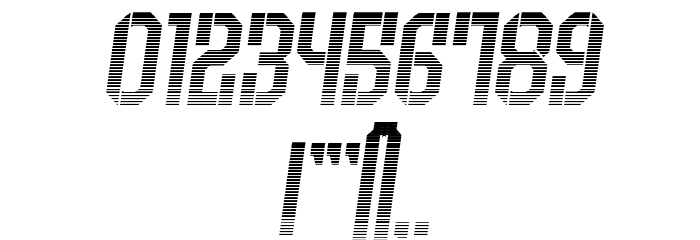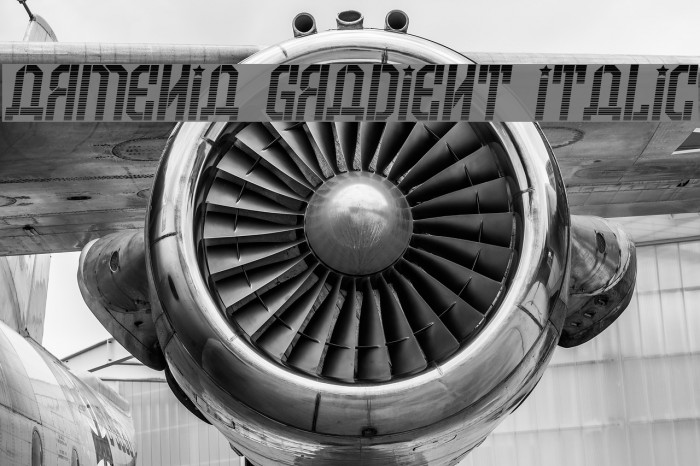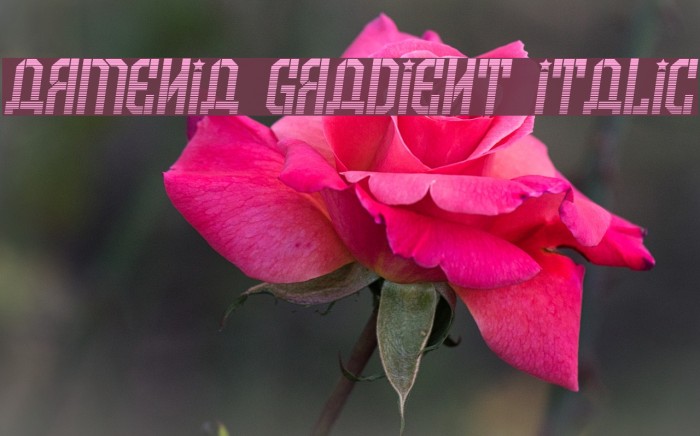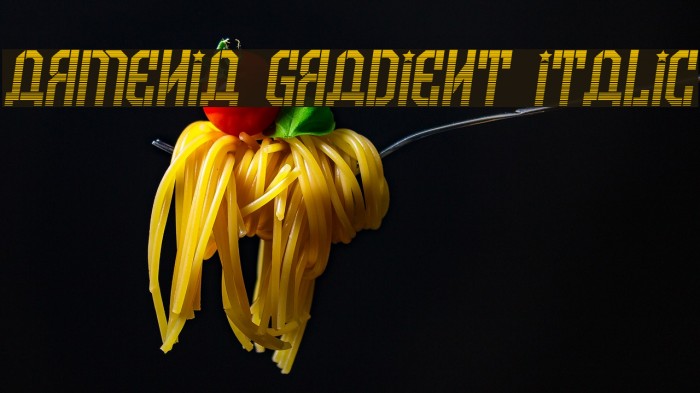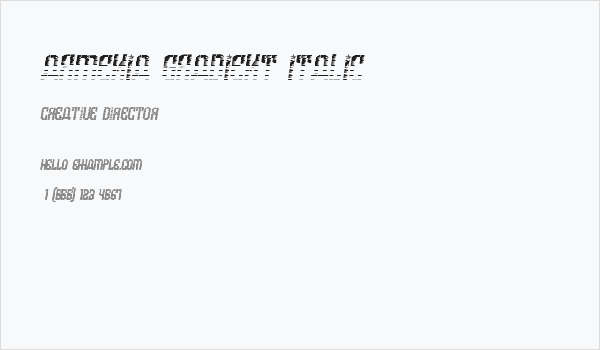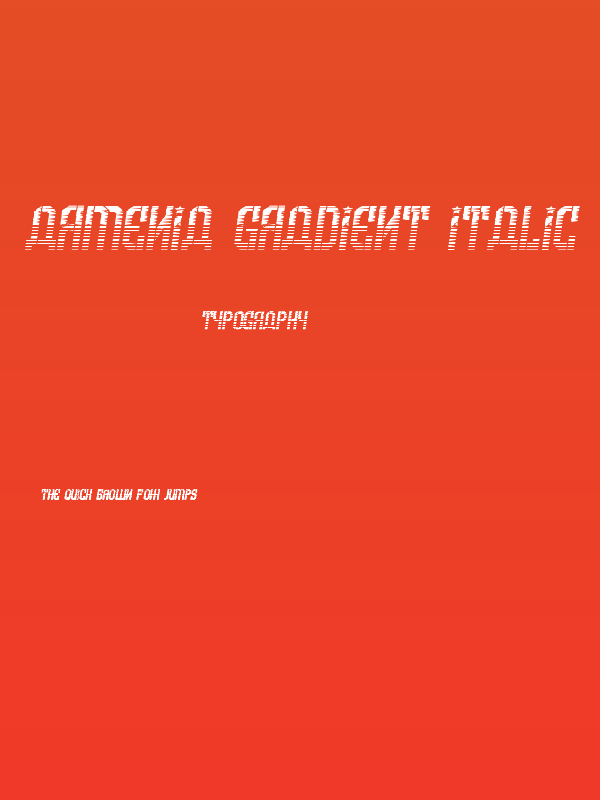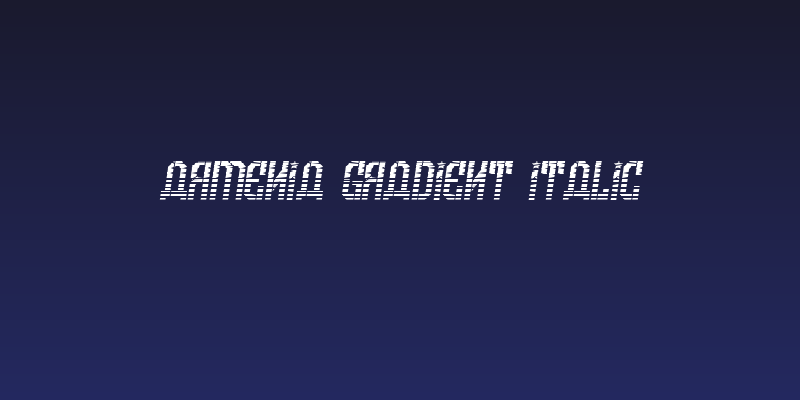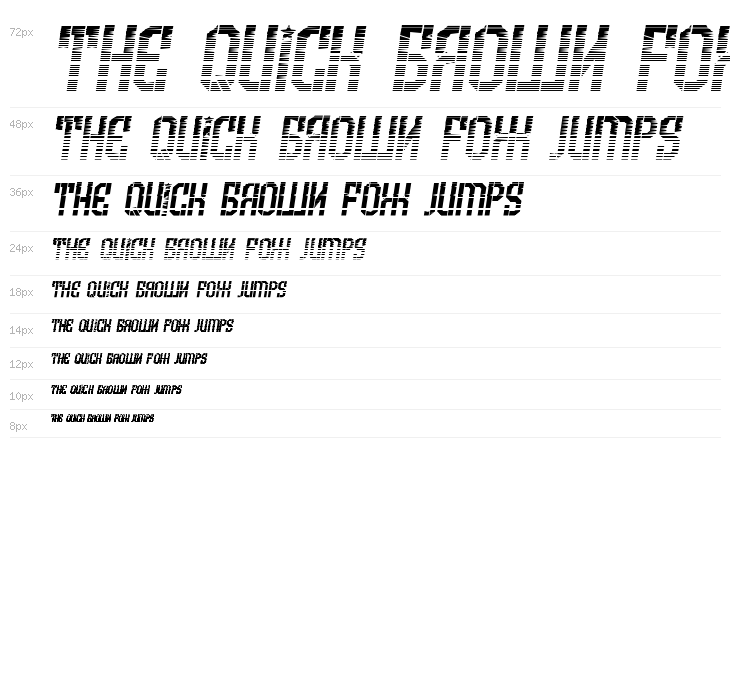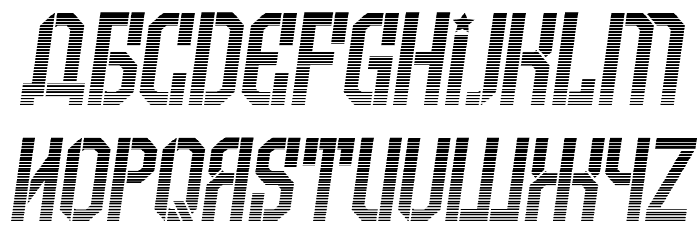
Armenia Gradient Italic Font
Armenia Gradient Italic Description
This font features a unique gradient effect within each character, creating a dynamic and modern appearance. The italicized style adds a sense of motion and fluidity, making it stand out. The characters are composed of horizontal lines that vary in thickness, giving a sense of depth and dimension. The uppercase and lowercase letters maintain a consistent style, while the numerals and special characters integrate seamlessly. This font's distinct look is ideal for projects that require a bold and futuristic aesthetic.
| Proposed Projects | Ideal for futuristic branding, tech-related designs, and eye-catching headlines. |